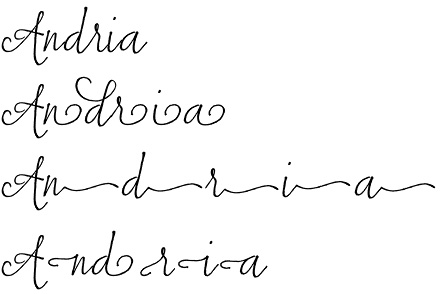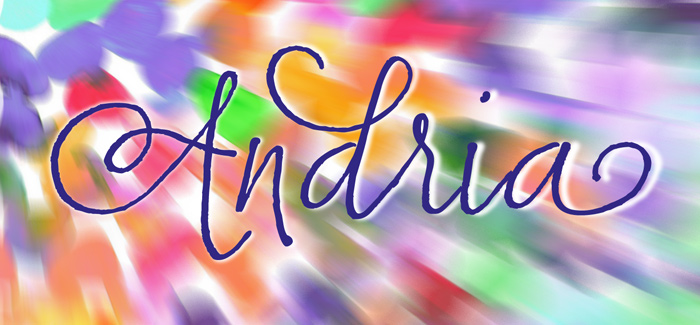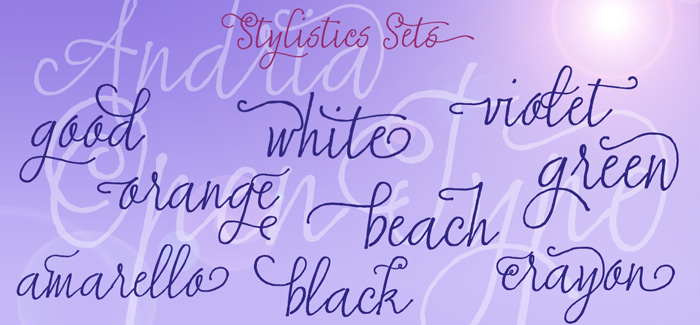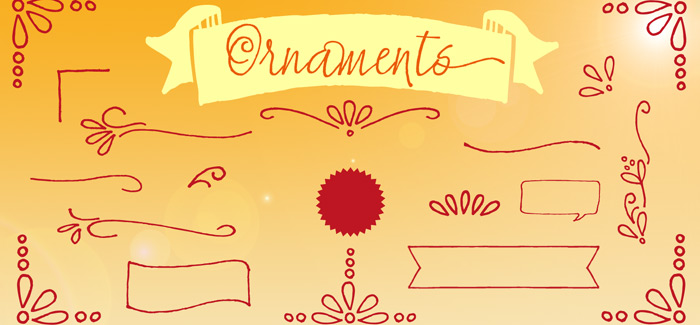
Andria font
Andria font is an original script designed by Eurotypo (Aleka, Kumma, Ameglia). This single weight face is a good example of how natural handwriting imperfactions are turned into haunted effect adding more authenticity to every design. Andria has a lot of potential to show if used in greeting cards, packaging, book covers or artistic headlines. It’s developed with extended character set supporting multilingual diacritics, alternates, swashes and ligature – they will all work in OpenType-aware soft. Andria is a low contrast face and will work perfectly in most of the cases both for screen and print graphics.
Designers: Carine de Wandeleer
Publisher: Eurotypo